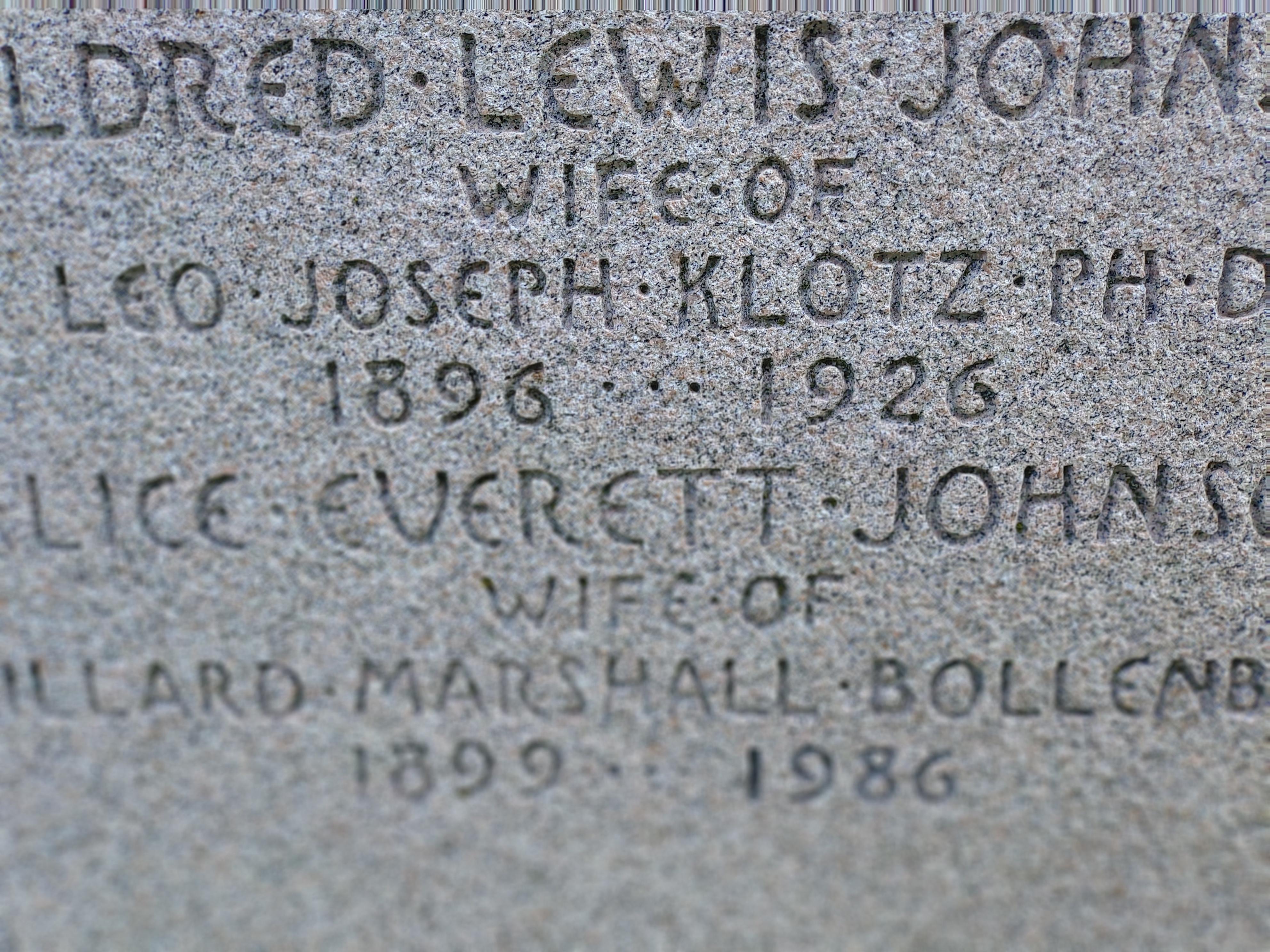
Good afternoon, Dan. This is custom lettering, with some quirky bowed strokes where you might expect straight ones. The style was used mainly in the first half of the 20th century by many prominent memorial design firms like Tiffany Studios and the McNeel Marble Company. Because it was hand-drawn, it varies from stone to stone.